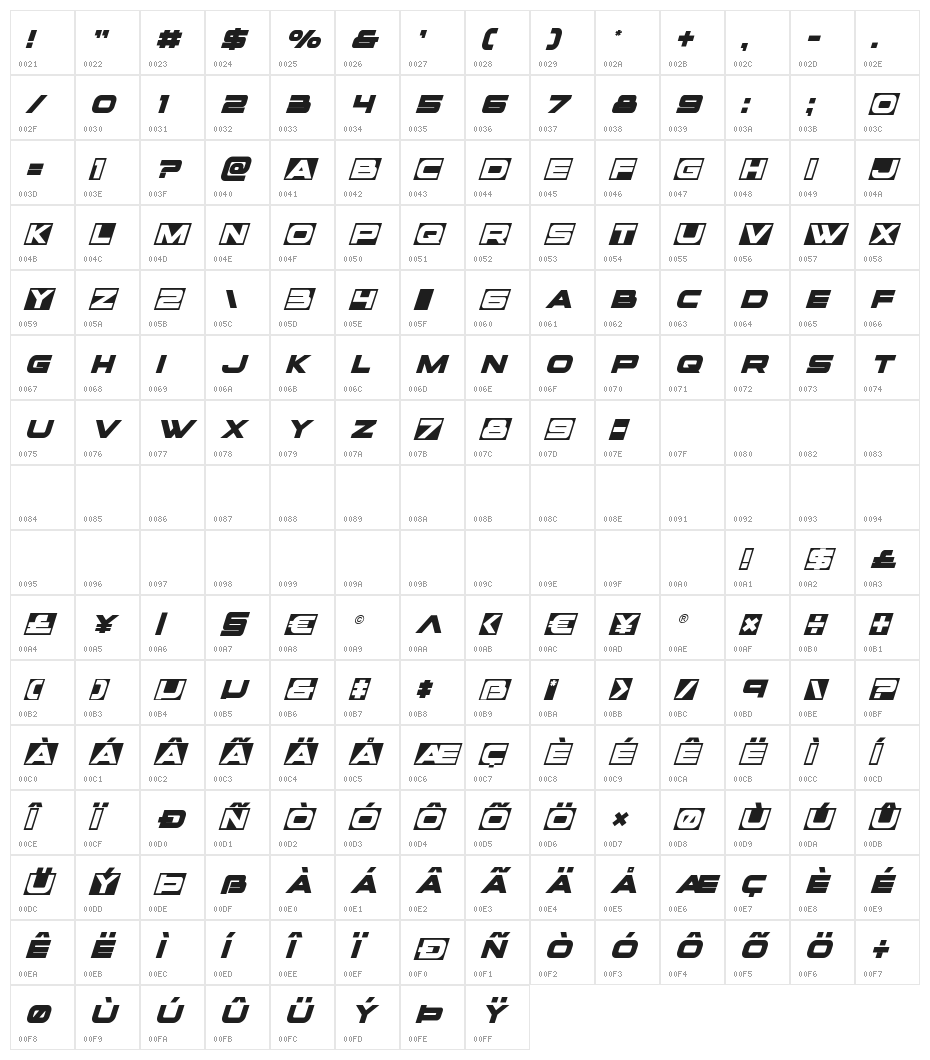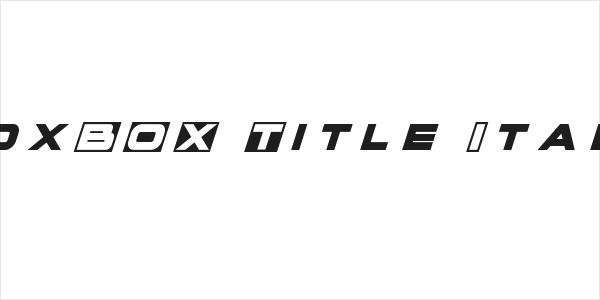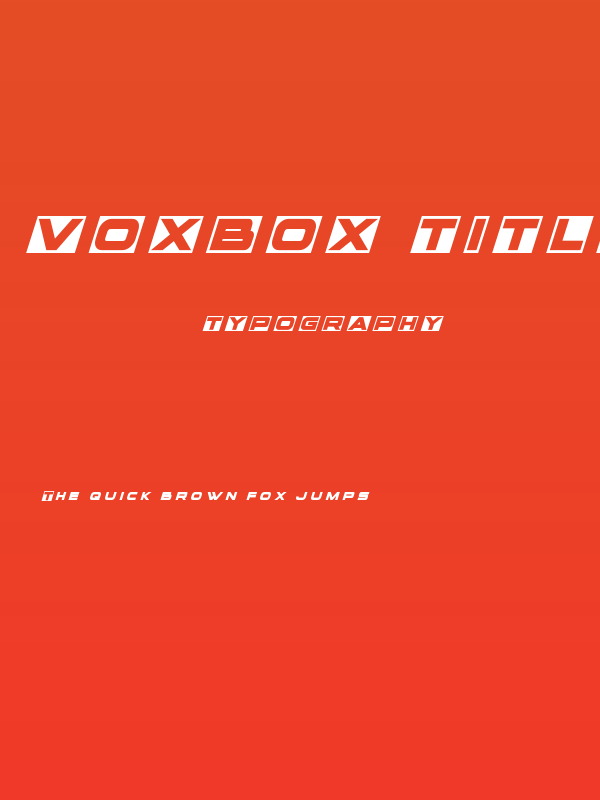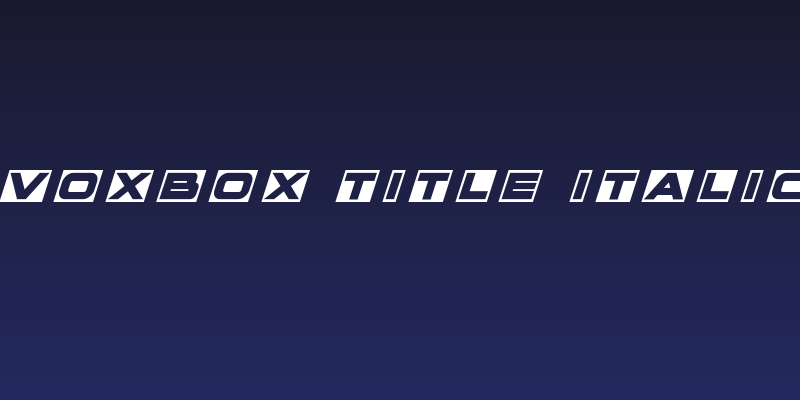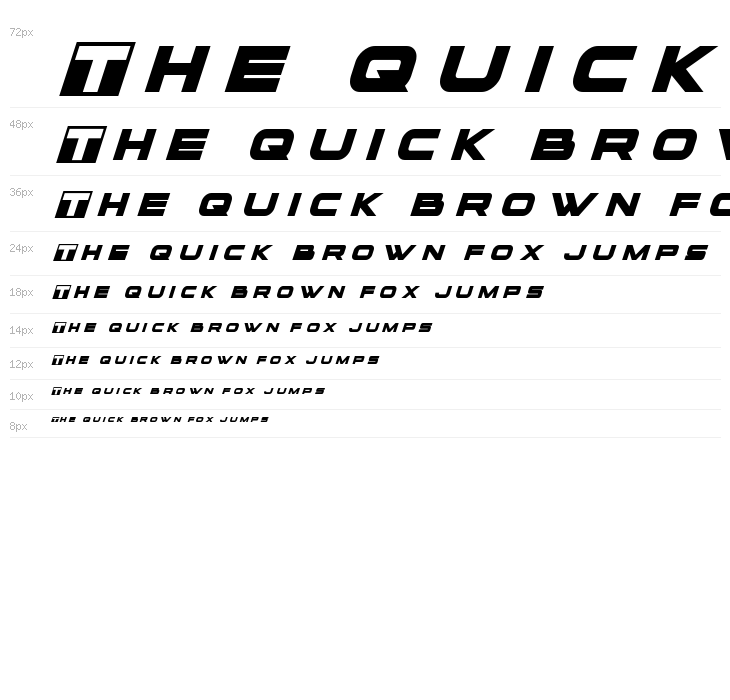
voxBOX Title Italic Font
voxBOX Title Italic Description
This font features a bold, italicized style with a modern and dynamic appearance. The characters are designed with a forward slant, giving a sense of motion and speed. The uppercase and lowercase letters maintain a consistent style, with sharp angles and clean lines. The numerals are equally bold, ensuring visibility and impact. Special characters are included, matching the overall aesthetic with a sleek and contemporary look. The font's design is suitable for projects that require a strong and energetic visual presence.
| Proposed Projects | Ideal for sports branding, automotive advertisements, and dynamic logo designs. |